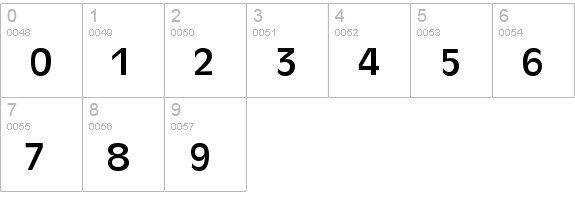
Antique Olive DC D Regular is the standard, neutral variant in the Antique typeface family \xE2\x80\x94 well suited to general body text, paragraphs, and standard typographic work.
Antique Olive DC D Regular is a timeless and elegant font that exudes sophistication and class. Its classic design and clean lines make it a versatile choice for a wide range of design projects. This font is perfect for creating vintage-inspired designs, invitations, logos, and more. What makes Antique Olive DC D Regular even more appealing is the fact that it is freely available to download at FontsMarket.com. This means that you can easily access this beautiful font and use it in your projects without any hassle. Whether you are a professional designer or just starting out, Antique Olive DC D Regular is a fantastic choice for adding a touch of elegance to your work.